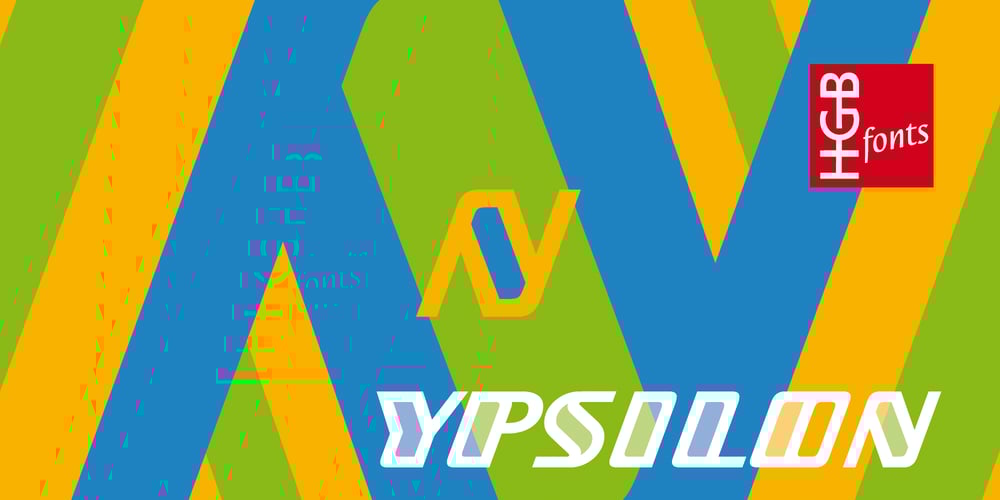
HGB Ypsilon Font Family was designed by Hellmut G. Bomm and published by HGB fonts. HGB Ypsilon contains 1 styles and family package options. Playing with old rub-on letters led to this alphabet. On the Letraset sheets (the older ones still remember…) there were always letters left over that were never or rarely used. I sometimes let interns play with it. To explain, I first rubbed an example myself. Two y’s from a Helvetica made a pretty shape. Looking closely, you see a contoured, italic N. I developed the HGB Ypsilon font from this N. A purely decorative typeface – it could be interesting for some logo.